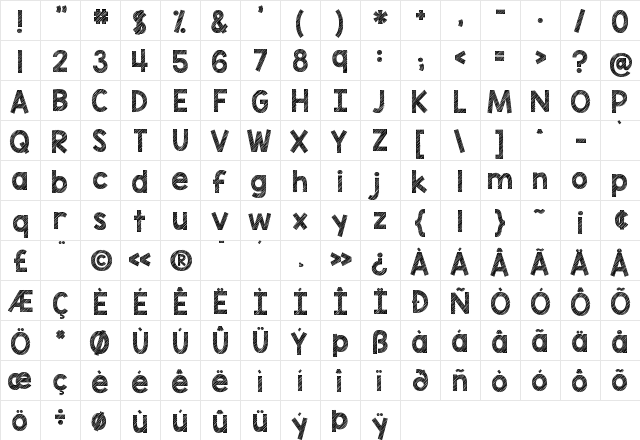
KG Blank Space Sketch Regular Font Preview
KG Blank Space Sketch Regular
KG Blank Space Sketch Regular Font Details
| Foundry | Kimberly Geswein |
| Designer | Kimberly Geswein |
Design Context for KG Blank Space Sketch Typeface
KG Blank Space Sketch takes a measured approach to typography — its balanced proportions and neutral character make it a reliable workhorse for both digital and print work.